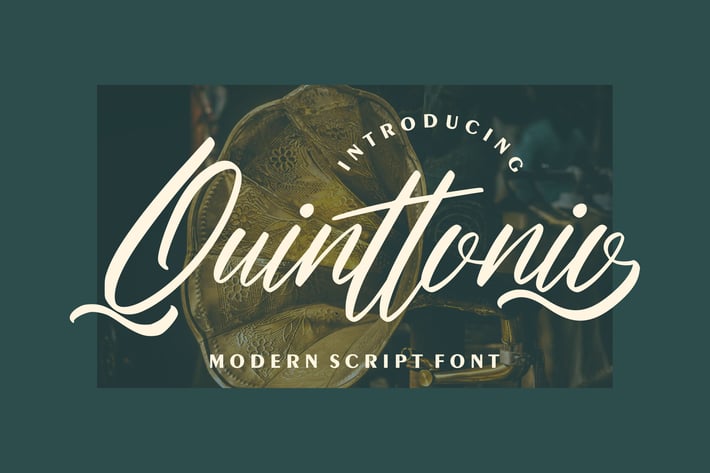
Quinttonio | Modern Script Font
Quinttonio | Modern Script Font with a calligraphy style, So beautiful on invitation like greeting cards, branding materials, business cards, quotes, posters, and more!